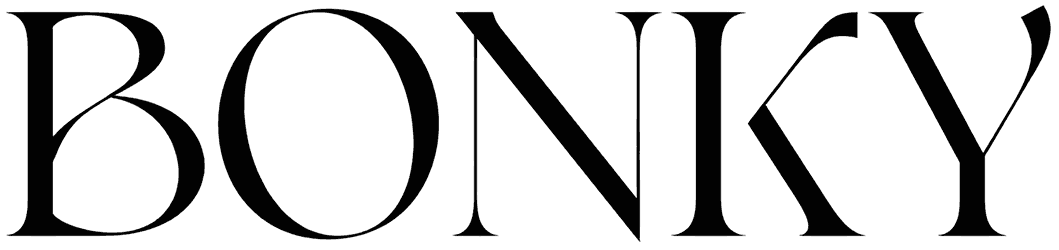
Bonky Font
Every serif font will give a kind of serious and formal makeover to your words, but this one is also accompanied by a kind of versatile aura that can be both formal and informal.
Bonky font has a semi-bold character design with a few twists and turns that make this one unique. It can be used for any news text or headline, movie posters, formal event or channel banners, or brand titles. This font only supports alphabetical letters.